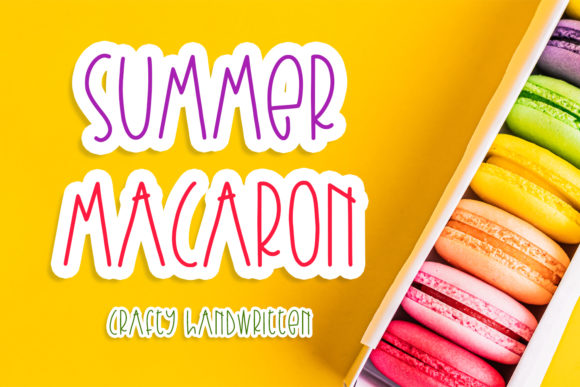
Introducing Summer Macaron, the delightful handwritten font that captures the essence of youthful charm and effortless elegance. Its playful strokes and vibrant characters bring a touch of whimsy to any project, making it the perfect choice for those seeking a unique and eye-catching font.
Summer Macaron is a true all-rounder, seamlessly adapting to a wide range of design styles and applications. Its versatility knows no bounds, whether you're crafting enchanting logos, captivating social media posts, or creating personalized invitations and greeting cards. Its friendly and approachable nature makes it ideal for projects aimed at young audiences, such as school projects, children's books, and playful packaging designs.
With Summer Macaron, your words will dance off the page, captivating readers with their vibrancy and playfulness. Its casual charm adds a touch of warmth and relatability to any project, making it perfect for crafting heartfelt messages and personal branding materials. Embrace the carefree spirit of summer with Summer Macaron, and let your creativity shine through in every design you create.
Unlock the boundless potential of Summer Macaron today and embark on a creative journey filled with joy and inspiration. Its enchanting characters will transform your designs into works of art, leaving a lasting impression on your audience. Join the creative revolution and let Summer Macaron be your font of choice for expressing your unique voice and capturing the hearts of all who encounter your designs.